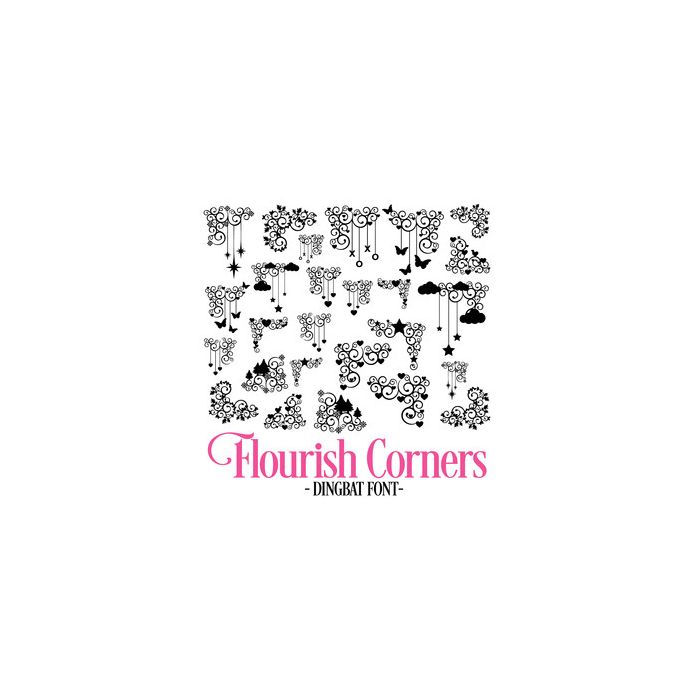
Hand Drawn Flourish Corners Dingbat Font. Includes 26 beautiful flourish corners, perfect for planners, wall art, word art, vinyl, bible and faith journaling, scrapbooking, gifts and more!. All are assigned to an upper case letter starting with 'A' or can be accessed via glyphs. For more design ideas, coordinating designs & products and inspiration, please visit my blog http://www.sarahhurleyblog.com